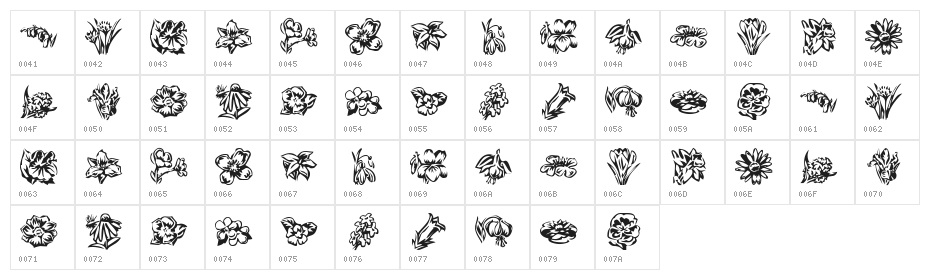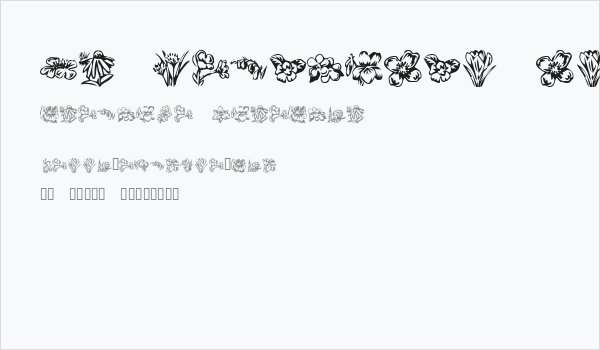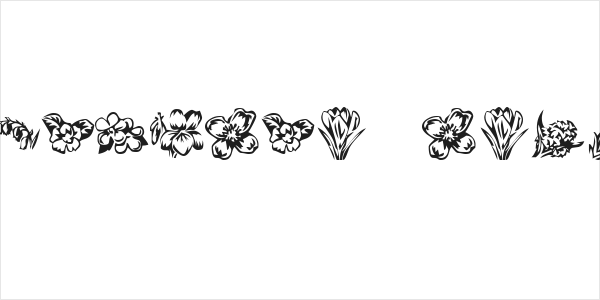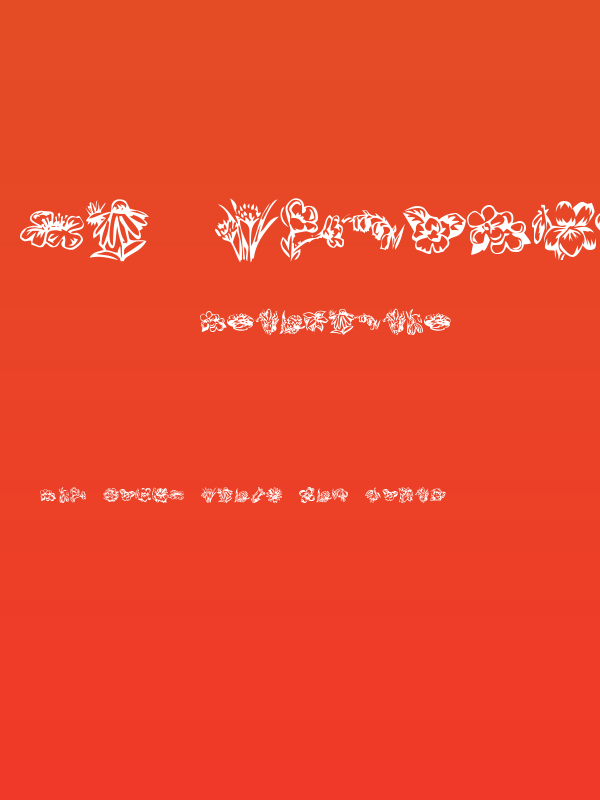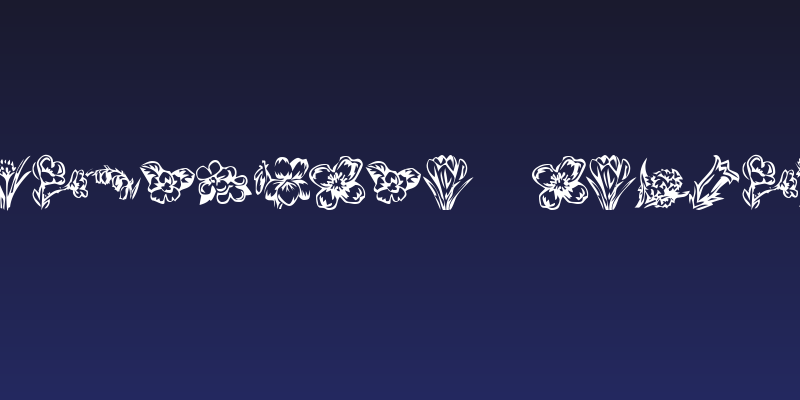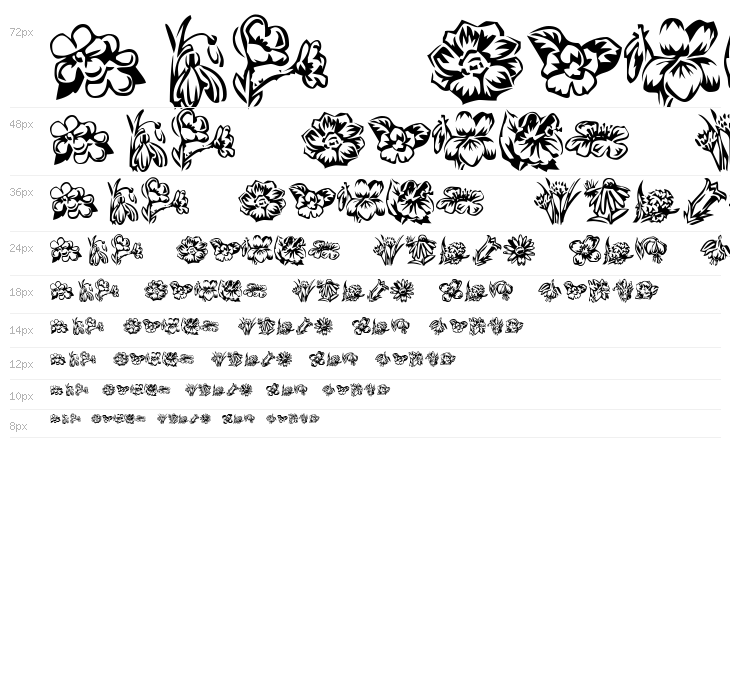
KR Beautiful Flowers 2 Font
KR Beautiful Flowers 2 Description
A decorative dingbat font featuring a variety of detailed, hand-drawn flower illustrations in place of standard alphanumeric and symbol characters. Each glyph is a unique floral design, rendered in bold black outlines with intricate petal and leaf details.
| Overall Style | Decorative, Hand-drawn |
| Use Case | Decorative elements, Borders, Themed graphics |
| Proposed Projects | Greeting cards, invitations, scrapbooking, decorative borders, craft projects, floral-themed branding. |